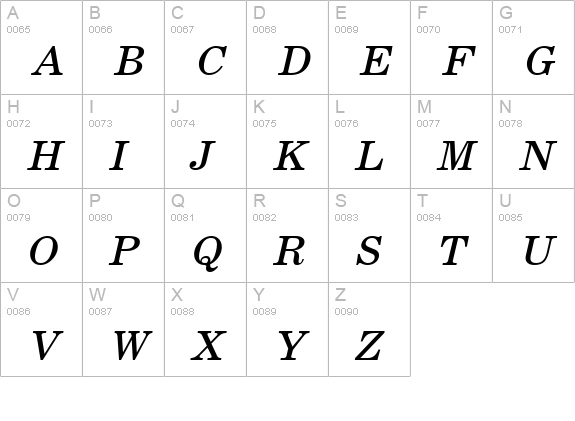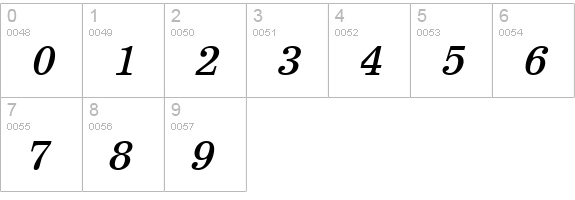
Sachem Oblique Font Details
Sachem Oblique is a distinctive, italic variant in the Sachem typeface family \xE2\x80\x94 well suited to design and typography projects.
Sachem Oblique is a stunning and versatile font that exudes a sense of elegance and sophistication. With its unique oblique angles and sleek curves, this font is perfect for capturing attention and making a statement in any design project. Designed with precision and attention to detail, Sachem Oblique offers a modern twist to traditional serif fonts. Its clean lines and sharp edges create a sense of professionalism and refinement, making it ideal for both print and digital applications. What sets Sachem Oblique apart is not only its striking aesthetics but also its availability as a free font. Yes, you heard it right – this exceptional typeface is freely available to download at FontsMarket.com. This means that you can access and utilize this font for your personal or commercial projects without any cost, making it a valuable asset for designers, creatives, and businesses alike. Whether you are working on a logo design, branding materials, website headers, or any other creative endeavor, Sachem Oblique will undoubtedly elevate your work to new heights. Its bold and assertive presence will command attention, ensuring that your message is conveyed with utmost impact and clarity. With its extensive character set, Sachem Oblique supports multiple languages, allowing you to express yourself in various linguistic contexts. This font is also compatible with both Mac and Windows operating systems, ensuring seamless integration into your design workflow. So, why settle for ordinary when you can have extraordinary? Download Sachem Oblique today from FontsMarket.com and unlock the limitless possibilities that this exceptional font has to offer. Experience the beauty of free design resources and unleash your creativity with Sachem Oblique.